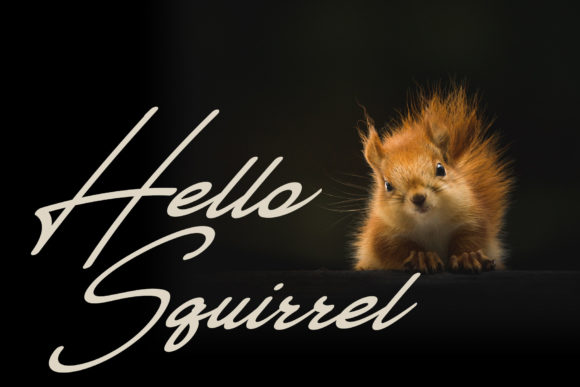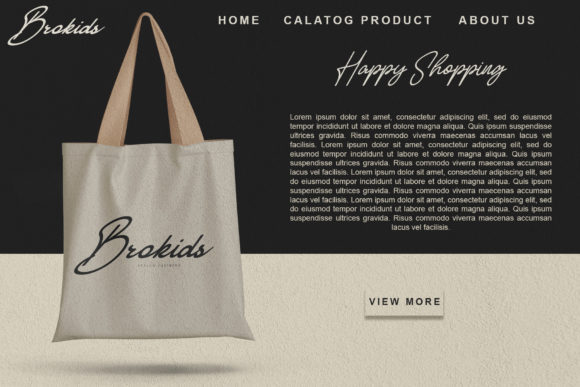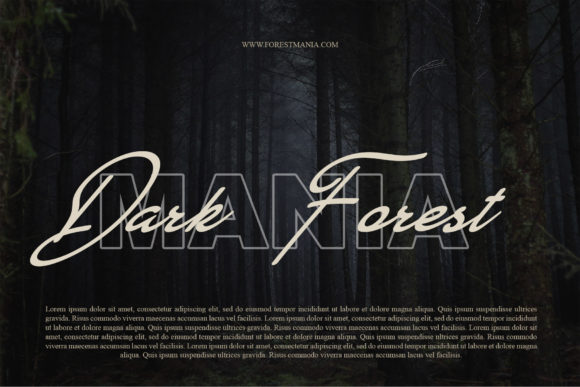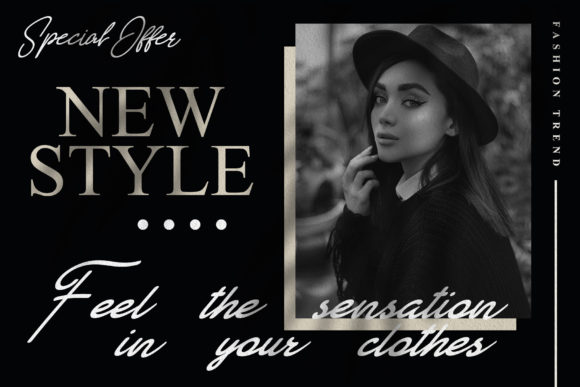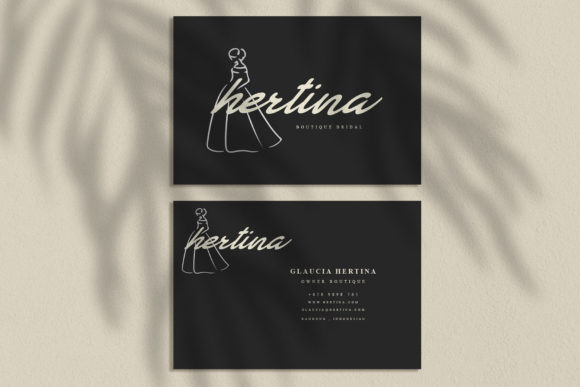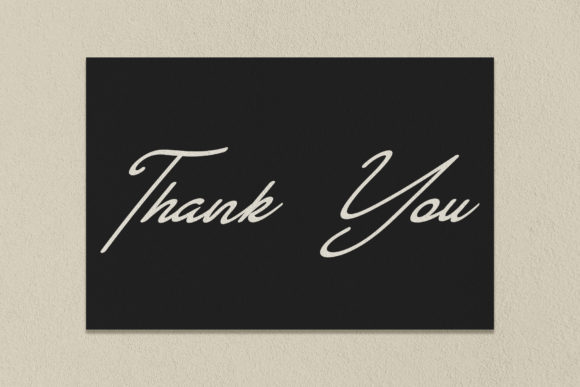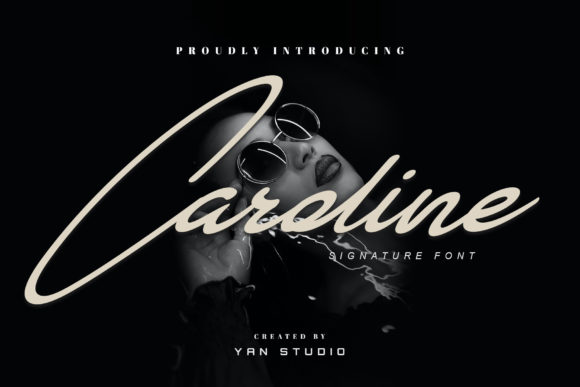
The Sweet Spot: Discovering Caroline Font
I still remember the design project that led me to Caroline Font. I was working on a whimsical branding project for a new bakery, and I was struggling to find the perfect handwritten font that would capture the warmth and friendliness of their brand. That’s when I stumbled upon Caroline, and it was love at first sight! 💕
Caroline is a sweet and friendly handwritten font that has become a staple in my design toolkit. Its natural and unique style makes it incredibly fitting for a large pool of designs, from branding and packaging to invitations and crafts. In this article, I’ll share my honest review of Caroline Font, provide a practical guide on how to use it, and explore similar fonts and alternatives.
- ✨ PUA encoded: Caroline Font is PUA encoded, which means you can access all the glyphs and swashes with ease!
- ✅ Unique and natural style: Caroline’s handwritten style is both unique and natural, making it perfect for designs that require a personal touch.
- 💕 Versatile: This font is incredibly versatile and can be used for a wide range of designs, from formal to informal.
While Caroline Font is an amazing font, there are a few small quirks to be aware of: 🤔
- ⚠️ Limited character set: While Caroline has a wide range of glyphs and swashes, it may not have every character or symbol you need.
- ⚠️ Some kerning issues: As with any font, there may be some kerning issues, especially when using the font at smaller sizes.
Caroline Font was designed with inspiration from classic handwritten fonts, combined with a modern twist. The designer aimed to create a font that would be both elegant and approachable, perfect for designs that require a personal touch.
Q: What is PUA encoding?
A: PUA (Private Use Area) encoding is a way of encoding fonts that allows for additional characters and glyphs to be included. This means that Caroline Font has a wide range of glyphs and swashes that can be accessed easily.
Q: Is Caroline Font suitable for body text?
A: While Caroline Font is a beautiful font, it may not be the best choice for body text due to its handwritten nature. It’s better suited for headings, titles, and other display text.